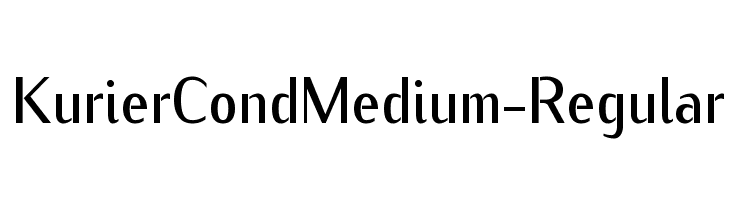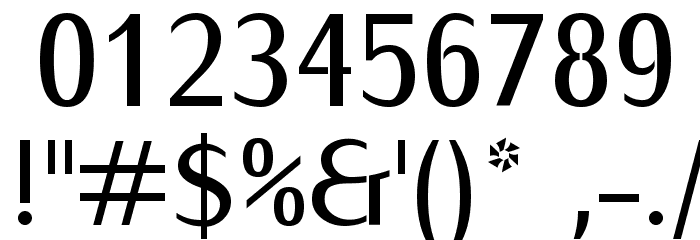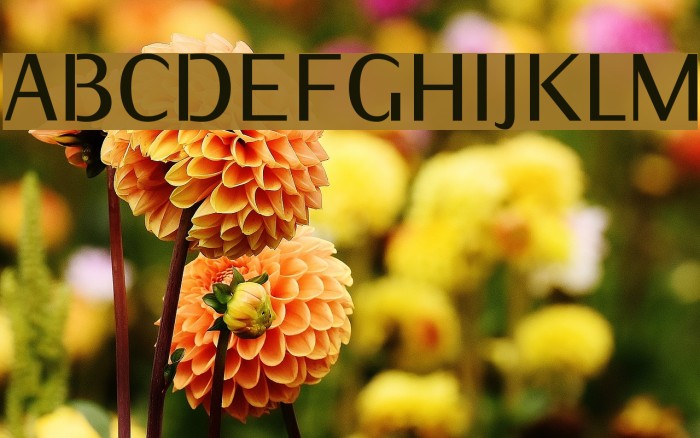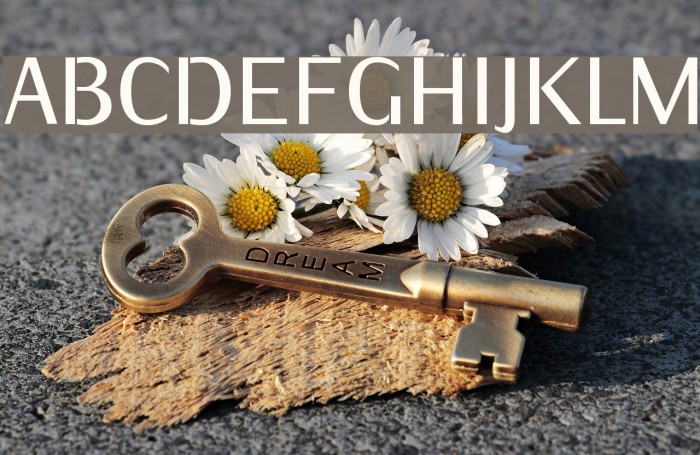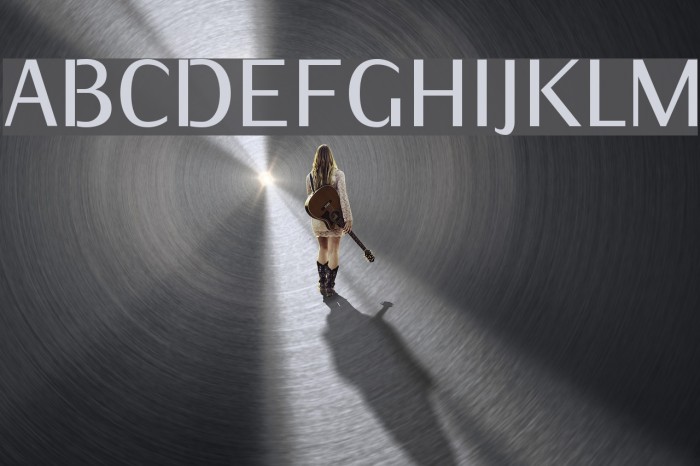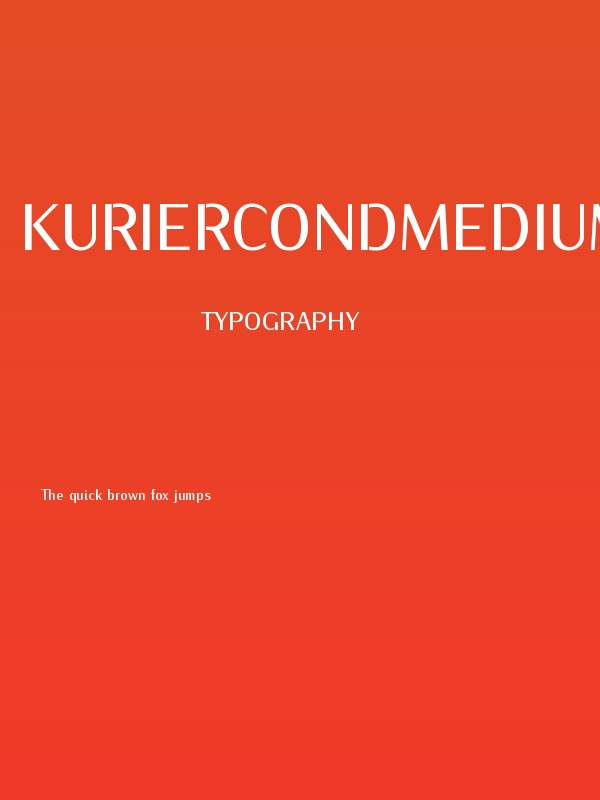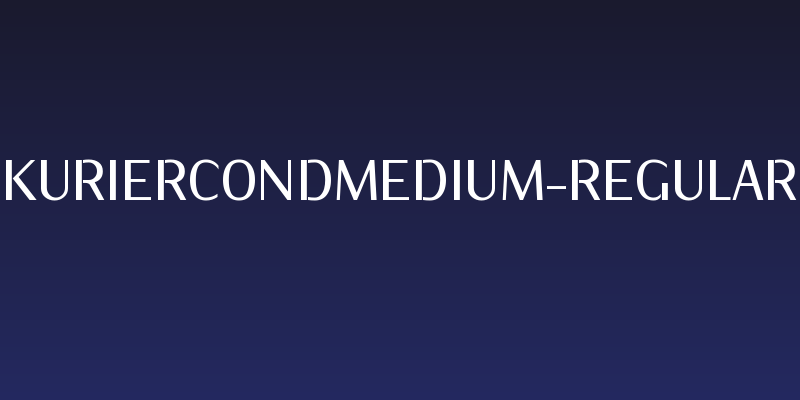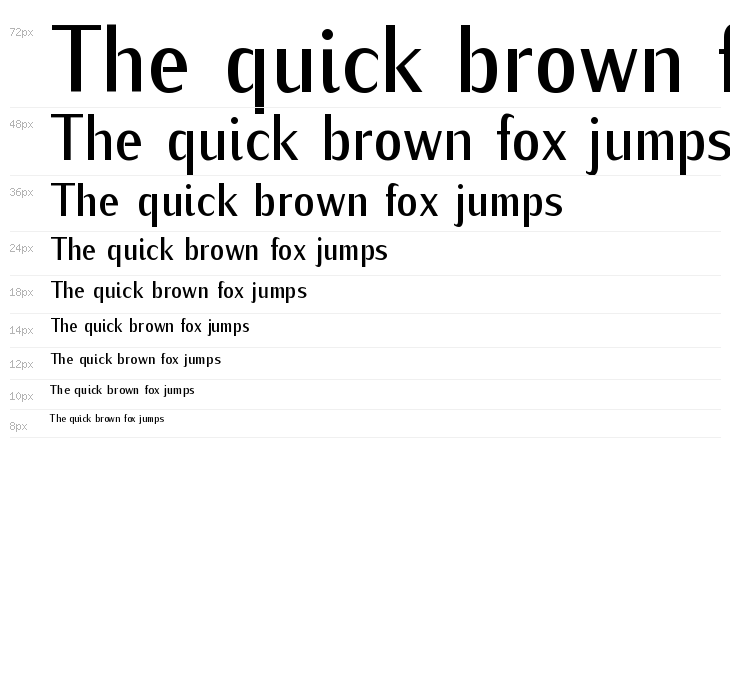
KurierCondMedium-Regular Font
KurierCondMedium-Regular Description
This font features a clean and modern sans-serif design with a medium weight, offering a balanced appearance suitable for various applications. The characters are slightly condensed, providing an efficient use of space while maintaining readability. The uppercase letters are bold and assertive, while the lowercase letters are more rounded and approachable. The numerals are clear and distinct, making them ideal for data presentation. Special characters are well-defined, ensuring versatility in different contexts. The overall style is contemporary and professional, making it a great choice for both digital and print media.
Use CaseHeadlines, Body text, Logos
Proposed ProjectsIdeal for corporate branding, website headers, editorial layouts, and advertising materials.